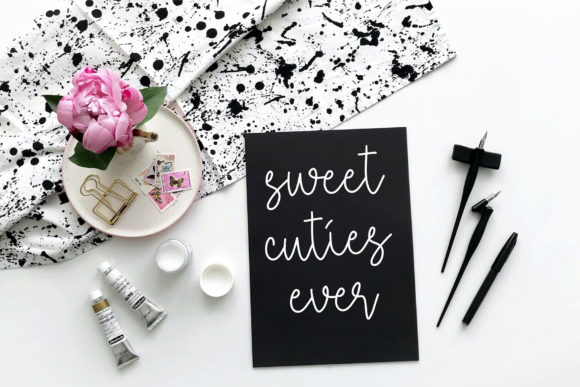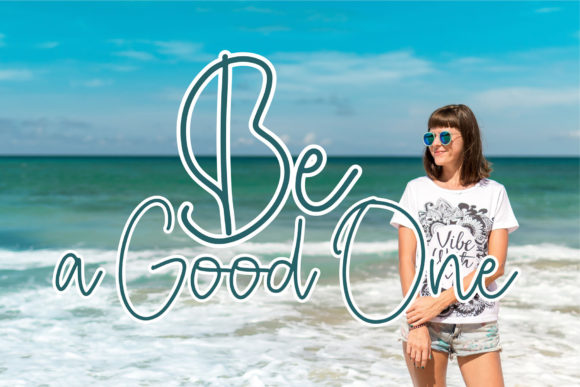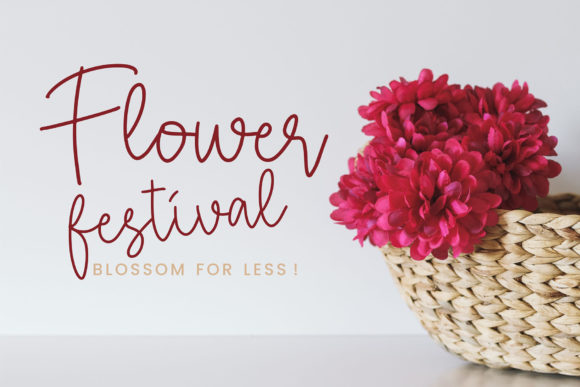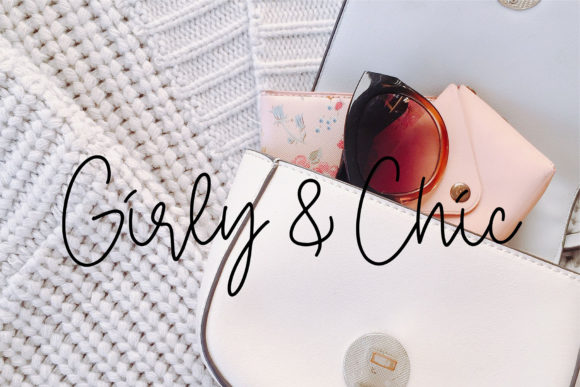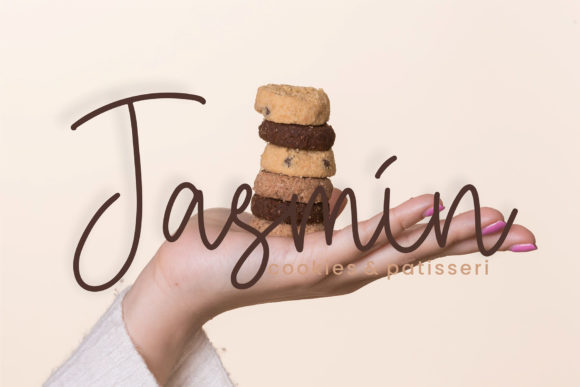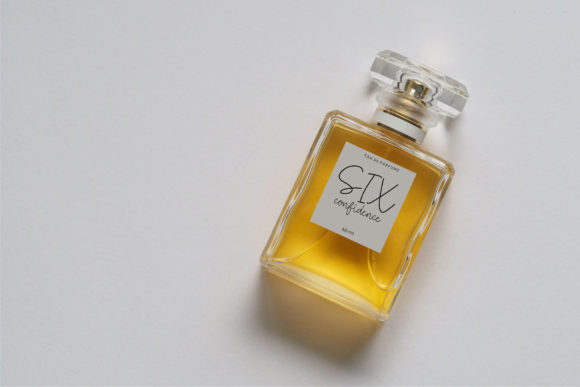
Discover the Elegant Charm of Gerlind Font: A Perfect Choice for Designers and Crafters
Are you on the hunt for a font that exudes elegance, playfulness, and sophistication? Look no further than Gerlind Font, a stunning signature script font that is sure to capture your heart. With its beautifully crafted letters and versatile design, Gerlind is an excellent choice for a wide range of creative projects, from branding and logos to wedding designs, social media posts, and more.
The Unique Characteristics of Gerlind Font
Gerlind Font boasts an elegantly playful nature that sets it apart from other fonts. Its unique characteristics include:
- Flowing Script Design: Gerlind features a beautiful, flowing script design that is perfect for creating elegant and sophisticated text.
- Playful Touch: The font’s playful nature adds a touch of whimsy and fun to any design, making it ideal for projects that require a bit of personality.
- High Legibility: Despite its ornate design, Gerlind is highly legible, making it suitable for use in a variety of contexts, from large headings to smaller body text.
Gerlind Font is an incredibly versatile font that can be used in a multitude of design projects, including:
- Branding Projects: Create a lasting impression with Gerlind’s elegant and sophisticated design, perfect for logos, business cards, and more.
- Wedding Designs: Add a touch of romance and whimsy to your wedding designs, including invitations, stationery, and decorations.
- Social Media Posts: Stand out on social media with Gerlind’s unique and eye-catching design, perfect for creating engaging posts and stories.
- Advertisements: Grab attention with Gerlind’s bold and playful design, ideal for creating effective advertisements and marketing materials.
- Product Packaging: Elevate your product packaging with Gerlind’s sophisticated design, perfect for labels, tags, and more.
- Product Designs: Add a touch of elegance and sophistication to your product designs, including brochures, catalogs, and more.
- Labels and Photography: Use Gerlind to create beautiful labels and watermarks for your photography projects.
- Invitations and Stationery: Create beautiful invitations, stationery, and greeting cards with Gerlind’s elegant and playful design.
Why Choose Gerlind Font?
With so many fonts to choose from, why should you choose Gerlind Font for your next design project? Here are just a few reasons:
- Unique Design: Gerlind’s unique design sets it apart from other fonts, ensuring your project stands out from the crowd.
- Versatility: Gerlind is incredibly versatile, making it suitable for use in a wide range of design projects.
- Elegance and Playfulness: The font’s elegant and playful nature makes it perfect for projects that require a touch of sophistication and whimsy.
Tips for Using Gerlind Font Effectively
To get the most out of Gerlind Font, here are a few tips to keep in mind:
- Use it Sparingly: While Gerlind is a beautiful font, it’s best used sparingly to avoid overwhelming the design.
- Pair it with Other Fonts: Experiment with pairing Gerlind with other fonts to create a unique and visually appealing design.
- Adjust the Size and Color: Play around with different sizes and colors to find the perfect combination for your design.
In conclusion, Gerlind Font is a stunning signature script font that is sure to capture your heart. With its elegantly playful nature, versatility, and unique design, it’s the perfect choice for designers and crafters looking to add a touch of sophistication and whimsy to their projects. Whether you’re working on a branding project, wedding design, or social media post, Gerlind Font is sure to impress.